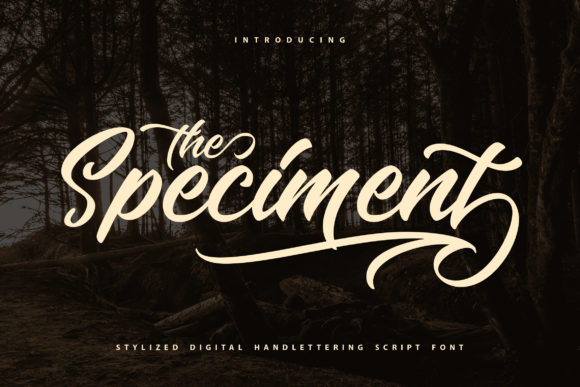
About The Speciment Font
Introducing The Speciment: The Beautiful Handwritten Font with a Retro Flow
Step into the world of vintage charm with The Speciment, a font that showcases the beauty of handwritten script with a touch of retro elegance. With its unique flow, The Speciment is the perfect choice for creating quotes, book covers, lifestyle designs, logos, magazine titles, and so much more. Embrace the allure of The Speciment as you bring a sense of timeless sophistication to your creative projects.
The Speciment’s beautiful handwritten appeal brings a sense of artistry and grace to your designs. Its flowing letterforms exude a vintage charm, making your text stand out with a touch of classic elegance.
As a font with a retro flow, The Speciment becomes your go-to choice for a wide range of design themes. Whether you’re crafting inspiring quotes, designing captivating book covers, or creating lifestyle-related designs, The Speciment adds a touch of nostalgia and character.
Embrace the beauty of The Speciment as you embark on your creative journey. Let it be the font that elevates your work, creating a sense of retro elegance and artistic flair in every project.
As you explore the possibilities of The Speciment, you’ll find it to be a font that enhances your designs with ease. Its handwritten beauty and retro flow transform your work, ensuring that your creations leave a lasting impression.
So, let The Speciment be the font that adds a vintage touch to your designs. Embrace its beautiful and flowing charm, and watch as your quotes, book covers, logos, and magazine titles come to life with a sense of timeless sophistication. With The Speciment as your go-to font, your designs will resonate with elegance and nostalgia, captivating your audience and leaving a lasting impression. Embrace the allure of The Speciment and create designs that are truly captivating and unforgettable!